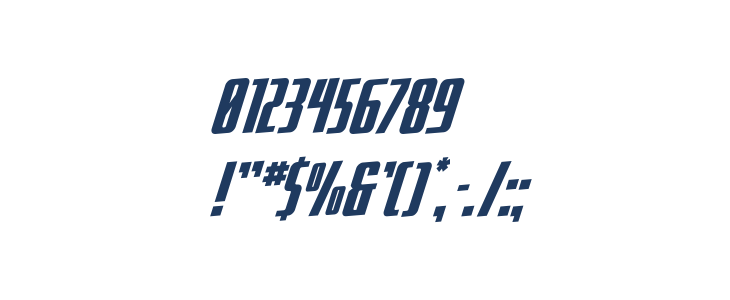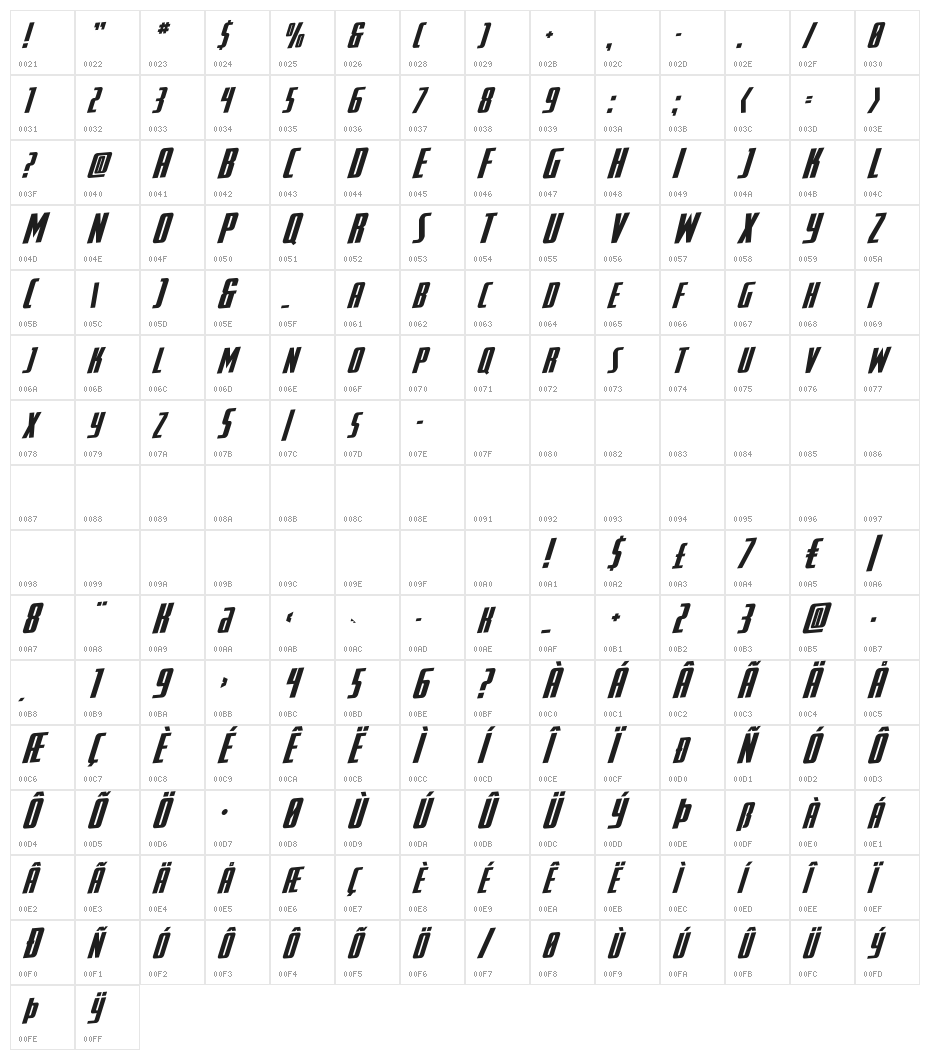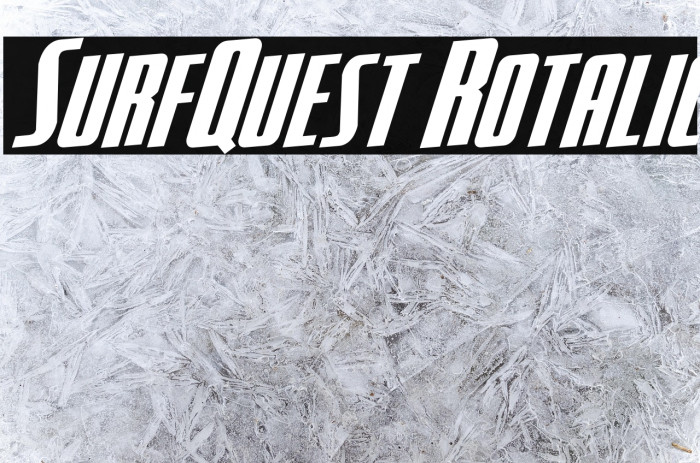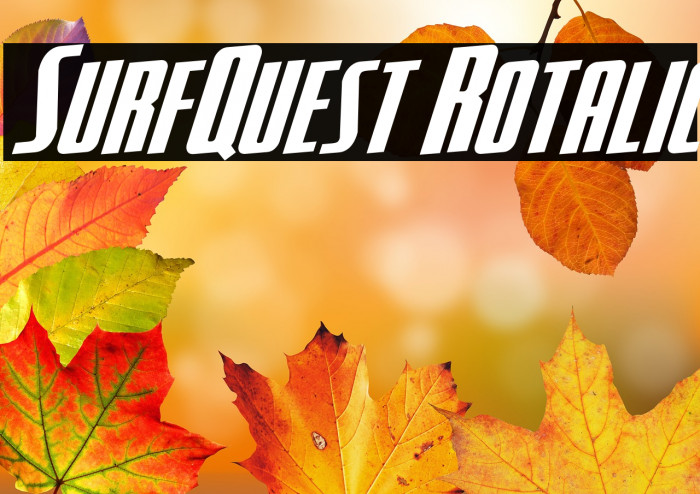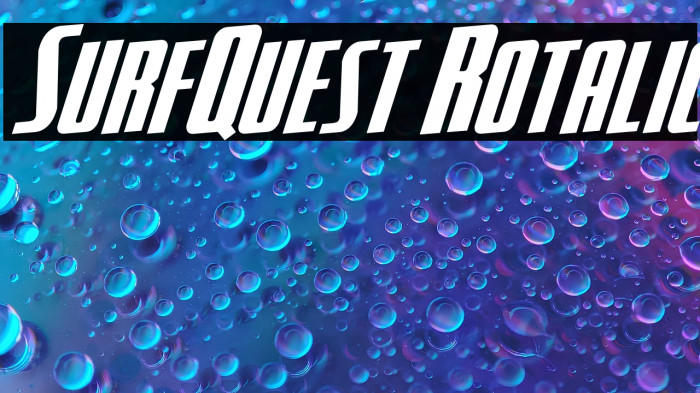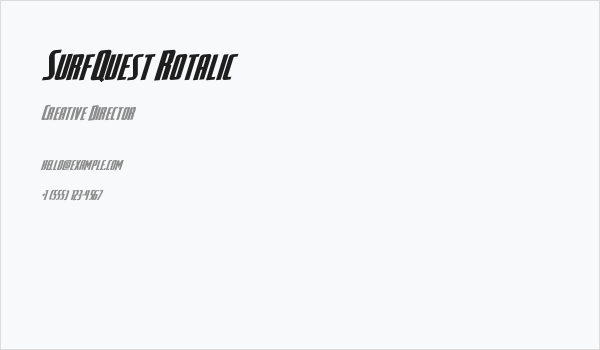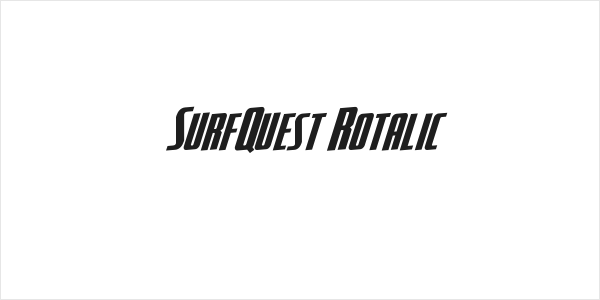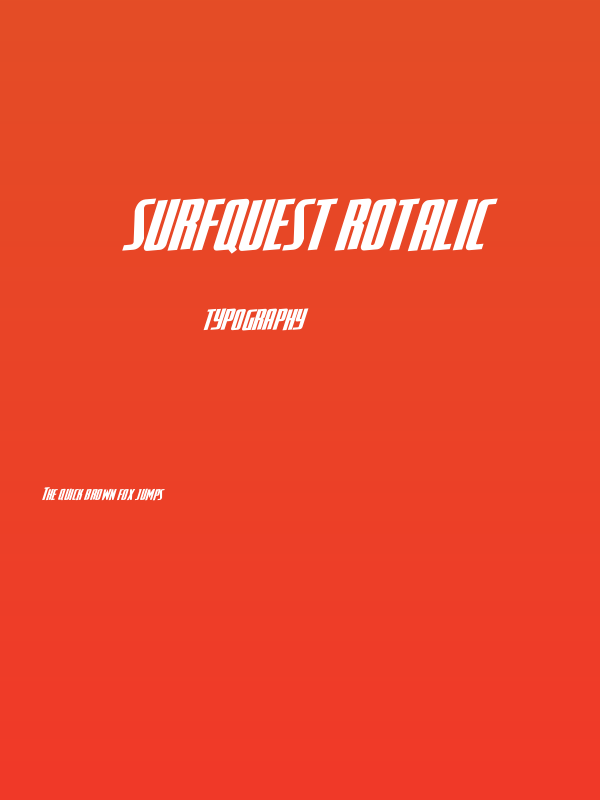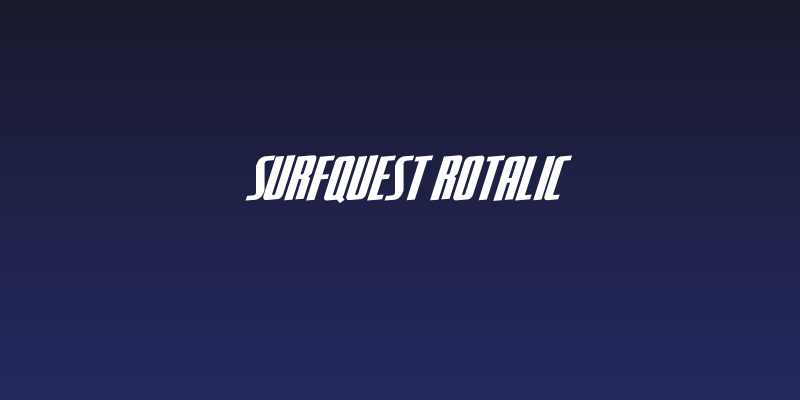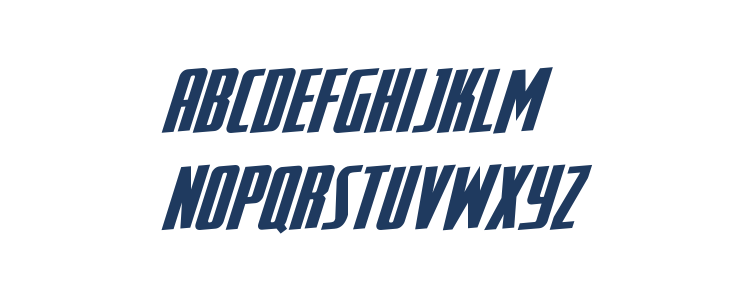
SurfQuest Rotalic Font
SurfQuest Rotalic Description
This font features a dynamic and bold design with a strong italic slant, giving it a sense of motion and energy. The characters are tightly spaced, enhancing its compact and impactful appearance. The strokes are thick and consistent, providing a high contrast that makes the text stand out prominently. Its angular and sharp edges contribute to a modern and aggressive style, making it suitable for attention-grabbing headlines and logos. The font's design is both sleek and assertive, ideal for projects that require a bold statement.
| Proposed Projects | Ideal for sports branding, dynamic posters, and modern advertising campaigns. |